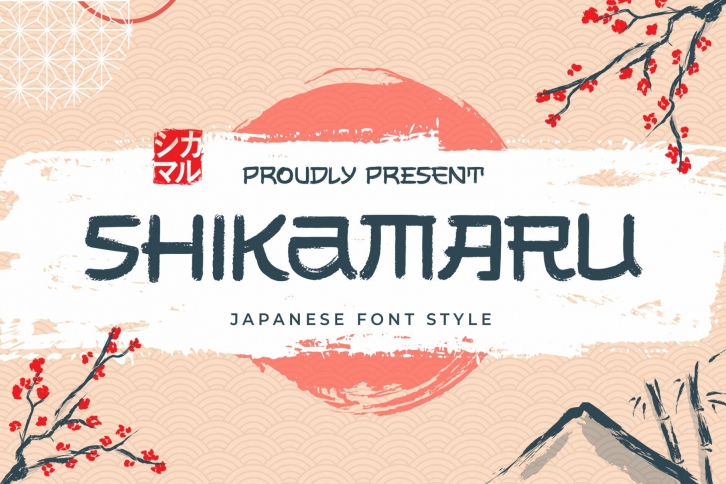
Shikamaru is a great font that was designed by Arterfak Project. Imagine the amount of combinations you can create using this font! The archive is 20.40 MB and it was released on February 26, 2021. Shikamaru looks beautiful on wedding invitations, greeting cards, logos, posters, labels, t-shirt designs, logos, business cards and is perfect for use in ink or watercolor works, fashion, magazines, packaging and food menus, children's books and more!